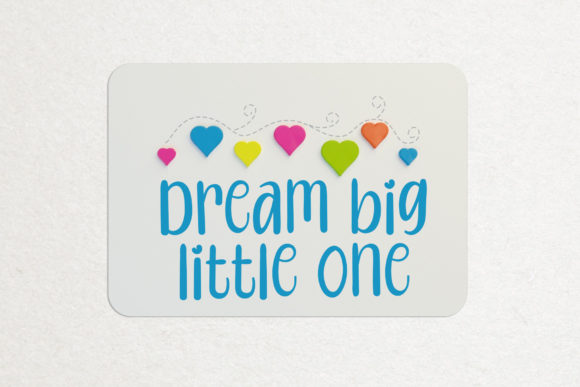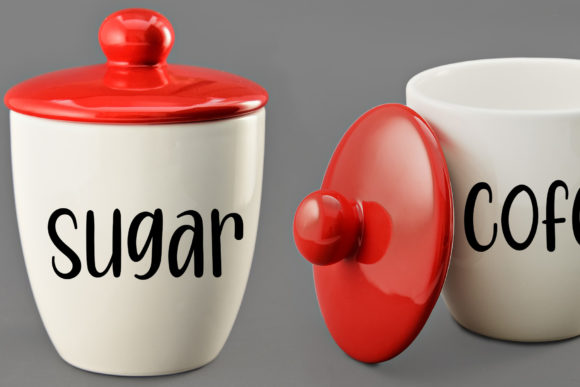
Smart Family Font
db-ku.com - Script & Handwritten -- Smart Family is a casual and beautiful handwritten font. It is perfect to be used on wedding invitations, greeting cards, billboards, logos, business cards, and any other design that requires a chic touch.